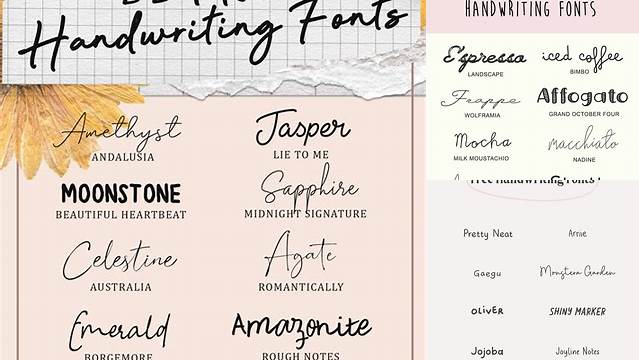
Free Handwriting Fonts: Download The Best Styles Now!
Hey guys! Looking to add a personal touch to your projects? Nothing beats the charm of handwriting fonts. Whether you're designing invitations, creating logos, or just spicing up your social media posts, the right font can make all the difference. Let's dive into the world of free handwriting fonts and explore the best options out there. We’ll cover everything from where to find them to how to use them effectively. So, buckle up and get ready to transform your designs with some beautiful, hand-crafted typography!
1. The Allure of Free Handwriting Fonts
Let's talk about why free handwriting fonts are so awesome. In a world dominated by sleek, digital designs, these fonts bring a touch of humanity and warmth. They can evoke feelings of nostalgia, intimacy, and authenticity, making your message more relatable. Imagine a wedding invitation with a delicate script or a motivational quote with a bold, handwritten style. The possibilities are endless!
When you use free handwriting fonts, you're adding a unique flair that sets your work apart. These fonts often mimic the natural flow and imperfections of real handwriting, giving your text a personal and organic feel. Plus, let’s be honest, who doesn't love free stuff? You can access a wide variety of styles without breaking the bank, which is a huge win for designers and creatives on a budget. Whether you're a seasoned pro or just starting out, free handwriting fonts are a fantastic resource to have in your toolkit. They offer a simple yet powerful way to elevate your projects and connect with your audience on a deeper level.
2. Where to Find Amazing Free Handwriting Fonts
So, you're on board with using free handwriting fonts, but where do you even begin looking? The internet is a vast ocean, and finding the right font can feel like searching for a needle in a haystack. But don't worry, I've got you covered! There are tons of websites out there that offer a fantastic selection of free handwriting fonts, and I'm going to share some of the best spots with you.
First up, think about websites like Google Fonts, DaFont, and Font Squirrel. These platforms are treasure troves of typography, with a huge range of styles available for download. Google Fonts is especially great because it offers fonts that are optimized for web use, meaning they'll look crisp and clear on any screen. DaFont is another favorite, with a massive collection of fonts submitted by designers from around the world. Font Squirrel is known for its high-quality free fonts, including many that come with commercial licenses, so you can use them in your projects without worrying about copyright issues. Don't forget to explore other resources like Behance and Creative Market, where designers often share their free fonts as a way to showcase their work. With a little bit of digging, you'll discover an amazing collection of free handwriting fonts that are perfect for your next project!
3. Top Free Script Fonts for Elegant Designs
When it comes to adding a touch of elegance and sophistication to your designs, script fonts are your best friend. These fonts mimic the graceful strokes of calligraphy and hand lettering, making them perfect for invitations, logos, and branding materials. But with so many options out there, how do you choose the right one? Let's explore some of the top free script fonts that can elevate your designs and give them that refined look you're after.
Imagine a delicate wedding invitation with swirling, romantic script, or a chic logo with a flowing, handwritten signature. Script fonts can instantly add a touch of class and personality to any project. Some popular free script fonts include those with varying thicknesses, styles, and weights – giving you the flexibility to choose something that matches your overall style and design aesthetic. Remember to consider the readability of the font, especially when using it for body text or smaller elements. A beautiful script font can be a game-changer for your designs, adding that extra layer of sophistication and charm. So, dive in and experiment with these elegant options to create something truly special.
4. Best Free Cursive Fonts for a Personal Touch
If you're aiming for a personal and intimate feel in your designs, cursive fonts are the way to go. These fonts capture the natural flow and rhythm of handwriting, adding a human touch that resonates with your audience. Whether you're creating thank-you notes, social media graphics, or personalized gifts, the right cursive font can make your message feel more authentic and heartfelt. Let's take a look at some of the best free cursive fonts that can help you achieve that warm and personal touch in your projects.
Think about the kind of emotion you want to evoke. Do you want something playful and whimsical, or more sophisticated and elegant? There are cursive fonts that are perfect for either scenario. You can also consider the context in which the font will be used. For example, a flowing, calligraphic cursive might be ideal for wedding invitations, while a simpler, more legible cursive could work well for body text. The key is to choose a font that not only looks beautiful but also conveys the right message and enhances your overall design. With the best free cursive fonts, you can easily add that personal touch that makes your work stand out.
5. Free Calligraphy Fonts to Add Flair
Calligraphy fonts are the epitome of elegance and artistry. These fonts draw inspiration from traditional calligraphy techniques, featuring graceful strokes and intricate letterforms. They're perfect for adding a touch of sophistication to your designs, whether you're working on wedding invitations, certificates, or branding materials. If you're looking to elevate your projects with a dash of flair, let's explore some fantastic free calligraphy fonts that are sure to impress.
Imagine the luxurious feel of a meticulously crafted calligraphy script on a formal invitation, or the refined look of a calligraphic logo for a high-end brand. Calligraphy fonts can instantly transform a design, making it feel more polished and professional. There are different styles available, so you can find something that matches the mood of your project. Some are ornate and decorative, while others are more streamlined and modern. The key is to choose a font that complements your overall design and enhances the message you're trying to convey. With the right free calligraphy fonts, you can add a touch of timeless beauty and elegance to your work.
6. Bold Free Handwriting Fonts for Impact
Sometimes, you need a font that really makes a statement. That's where bold free handwriting fonts come in. These fonts are perfect for headlines, posters, and any design where you want to grab attention. The thick, strong strokes convey confidence and energy, making your message impossible to ignore. Let's dive into the world of bold handwriting fonts and discover some options that pack a serious punch.
Think about the impact a bold, handwritten headline can have on a website or a poster. It instantly stands out and draws the eye, making it a great choice for anything that needs to make a strong impression. When choosing a bold handwriting font, consider the overall tone and message you want to convey. A bold, blocky font might be perfect for a sports-themed design, while a thicker, slightly rougher script could work well for a vintage-inspired project. The versatility of bold free handwriting fonts means you can use them in countless creative ways to make your designs truly stand out. So, go ahead and explore these powerful options to add some serious impact to your work!
7. Light and Airy Free Handwriting Fonts
On the flip side, sometimes you need a font that's light, delicate, and airy. These fonts are perfect for creating a sense of elegance, subtlety, and calm. They work beautifully for invitations, thank-you notes, and designs where you want a soft and gentle touch. Let's explore some lovely free handwriting fonts that capture this ethereal quality.
Picture a minimalist design with a delicate, handwritten script floating across the page. It creates a sense of understated beauty and sophistication. Light and airy free handwriting fonts are often characterized by their thin strokes and graceful curves, giving them a refined and elegant appearance. They can add a touch of romance to wedding invitations, create a calming vibe on a wellness website, or simply make your text feel more personal and inviting. When using these fonts, it's important to consider the background and other design elements to ensure the text remains legible and the overall look is harmonious. With the right light and airy handwriting font, you can create designs that are both beautiful and impactful.
8. Fun and Playful Free Handwriting Fonts
If you're working on a project that needs a dose of fun and whimsy, playful free handwriting fonts are the perfect choice. These fonts inject personality and energy into your designs, making them ideal for kids' projects, social media graphics, and anything that needs a lighthearted touch. Let's explore some of these lively and engaging fonts that can bring a smile to your audience's faces.
Imagine a children's book with a bouncy, handwritten title, or a birthday party invitation with a quirky, playful script. These fonts instantly create a sense of joy and excitement, making them perfect for projects that need a little bit of fun. Playful free handwriting fonts often feature irregular lines, quirky letterforms, and a sense of spontaneity that makes them feel truly unique. They can be used to create a casual, friendly vibe, making your message more approachable and engaging. When choosing a playful font, consider the age group and tone of your audience to ensure it aligns with your overall design. With the right fun and playful font, you can create designs that are both eye-catching and enjoyable.
9. Modern Free Handwriting Fonts
For designs that need a contemporary and stylish touch, modern free handwriting fonts are the way to go. These fonts blend the natural charm of handwriting with a clean, minimalist aesthetic, making them perfect for branding, websites, and other modern applications. Let's dive into some of the best modern handwriting fonts that can give your designs a fresh and sophisticated look.
Think about a sleek website with a handwritten logo or a modern business card with a stylish, handwritten tagline. These elements can add a personal touch to your brand while maintaining a professional appearance. Modern free handwriting fonts often feature simplified letterforms, clean lines, and a subtle sense of imperfection that gives them character. They can be incredibly versatile, working well for both headings and body text, depending on the style and weight of the font. When choosing a modern handwriting font, consider the overall tone and branding of your project to ensure it aligns with your vision. With the right font, you can create designs that are both contemporary and personal.
10. Vintage and Retro Free Handwriting Fonts
If you're aiming for a nostalgic and timeless feel in your designs, vintage and retro free handwriting fonts are an excellent choice. These fonts evoke the charm of past eras, adding a touch of history and character to your projects. They're perfect for posters, logos, and any design that needs a classic touch. Let's explore some of these fonts that can transport your audience back in time.
Imagine a vintage-inspired poster with a bold, handwritten script, or a retro logo with a quirky, handwritten typeface. These elements can instantly give your design a sense of history and authenticity. Vintage and retro free handwriting fonts often feature distressed textures, unique letterforms, and a style that harks back to the hand-lettered signs and advertisements of the past. They can be used to create a sense of nostalgia, making your designs feel warm and familiar. When choosing a vintage font, consider the specific era you want to evoke and the overall tone of your project. With the right font, you can create designs that are both stylish and timeless.
11. Free Handwriting Fonts for Cricut Projects
If you're a DIY enthusiast or crafter, you probably love using your Cricut machine to create personalized projects. And what better way to add a personal touch than with handwriting fonts? Free handwriting fonts for Cricut projects can elevate your creations, whether you're making cards, labels, or home decor. Let's explore some great options that work well with Cricut and other cutting machines.
Think about custom-made cards with heartfelt messages, personalized labels for your pantry, or unique wall art with inspiring quotes. Handwriting fonts can make these projects feel extra special and handmade. When choosing a free handwriting font for Cricut, it's important to consider the cutability of the font. Fonts with smooth lines and fewer intricate details will generally cut cleaner and easier. You'll also want to choose a font that fits the style and tone of your project. A delicate script might be perfect for a wedding invitation, while a bold, playful font could be ideal for a children's birthday card. With the right font, you can create beautiful and personalized projects that showcase your creativity and style.
12. Free Handwriting Fonts for Procreate
Procreate is a fantastic app for digital artists and designers, and using free handwriting fonts in your Procreate projects can open up a world of creative possibilities. Whether you're creating illustrations, lettering art, or digital designs, the right font can add a personal touch and make your work stand out. Let's explore some great handwriting fonts that are perfect for Procreate.
Imagine adding a handwritten quote to your digital artwork, creating a custom logo with a unique script, or designing a greeting card with a personal message. Handwriting fonts can bring a sense of authenticity and warmth to your digital creations. When choosing a free handwriting font for Procreate, consider the style and tone of your project. A flowing, calligraphic font might be perfect for an elegant invitation, while a bold, handwritten font could be ideal for a poster or social media graphic. You'll also want to think about the readability of the font, especially if you're using it for body text or smaller elements. With the right font, you can create stunning digital designs that feel both personal and professional.
13. Free Handwriting Fonts for Logos
A logo is the face of your brand, and choosing the right font is crucial for conveying your brand's personality and message. Free handwriting fonts can be a fantastic option for creating logos that are unique, memorable, and personal. Whether you're starting a small business or rebranding an existing one, let's explore some great handwriting fonts that can help you create a logo that truly stands out.
Think about some of the most iconic logos – many of them feature handwritten or script fonts that give them a distinctive look. A handwritten font can add a sense of authenticity and warmth to your brand, making it feel more approachable and human. When choosing a free handwriting font for your logo, consider your brand's identity and target audience. A bold, modern font might be perfect for a tech startup, while a delicate script could be ideal for a wedding planner or florist. You'll also want to ensure that the font is legible and scalable, so it looks good in both large and small sizes. With the right font, you can create a logo that truly captures the essence of your brand.
14. Free Handwriting Fonts for Invitations
Creating invitations for special events is all about setting the right tone and making a great first impression. Free handwriting fonts can add a touch of elegance, warmth, and personality to your invitations, making them feel extra special. Whether you're planning a wedding, birthday party, or any other celebration, let's explore some beautiful handwriting fonts that can help you create invitations that truly shine.
Imagine receiving a wedding invitation with a delicate, flowing script, or a birthday party invitation with a playful, handwritten font. These details can make your guests feel excited and welcomed. When choosing a free handwriting font for your invitations, consider the style and formality of your event. A calligraphic font might be perfect for a formal wedding, while a casual script could be ideal for a backyard barbecue. You'll also want to ensure that the font is legible and easy to read, so your guests can quickly find the important details. With the right font, you can create invitations that are both beautiful and informative, setting the stage for a memorable event.
15. Free Handwriting Fonts for Social Media
In the fast-paced world of social media, it's important to grab attention and stand out from the crowd. Using free handwriting fonts in your social media graphics can add a personal touch and make your posts more engaging. Whether you're creating quotes, announcements, or promotional content, let's explore some fantastic handwriting fonts that can help you elevate your social media presence.
Think about how a handwritten quote can add a touch of authenticity to your Instagram feed, or how a playful script can make your Facebook posts more eye-catching. Handwriting fonts can help you connect with your audience on a more personal level, making your content feel more relatable and genuine. When choosing a free handwriting font for social media, consider the overall style and tone of your brand. A bold, modern font might be perfect for a tech company, while a delicate script could be ideal for a beauty brand. You'll also want to ensure that the font is legible and easy to read, especially on smaller screens. With the right font, you can create social media graphics that are both visually appealing and impactful.
16. Free Handwriting Fonts for T-Shirts
Designing your own t-shirts is a fun and creative way to express your personality and style. Using free handwriting fonts in your t-shirt designs can add a unique and personal touch, making your creations stand out. Whether you're making shirts for yourself, your friends, or your business, let's explore some great handwriting fonts that are perfect for t-shirt designs.
Imagine a t-shirt with an inspiring quote in a stylish script, or a funny slogan in a bold, handwritten font. These designs can make a statement and reflect your individual style. When choosing a free handwriting font for t-shirts, it's important to consider the legibility of the font, especially if you're using it for smaller text. You'll also want to think about the overall design and the message you want to convey. A bold, edgy font might be perfect for a rock band's merchandise, while a delicate script could be ideal for a personalized gift. With the right font, you can create t-shirt designs that are both stylish and meaningful.
17. Free Handwriting Fonts for Websites
Your website is your online storefront, and choosing the right fonts is crucial for creating a professional and engaging user experience. Free handwriting fonts can add a personal touch to your website, making it feel more welcoming and authentic. Whether you're designing a blog, an online store, or a portfolio, let's explore some fantastic handwriting fonts that can help you elevate your website's design.
Think about how a handwritten logo can make your website more memorable, or how a delicate script can add a touch of elegance to your headings. Handwriting fonts can help you create a website that stands out from the crowd and reflects your unique brand personality. When choosing a free handwriting font for your website, it's important to consider the readability of the font, especially for body text. You'll also want to ensure that the font is web-friendly and loads quickly, so your website visitors have a smooth and enjoyable experience. With the right font, you can create a website that is both visually appealing and user-friendly.
18. How to Pair Free Handwriting Fonts with Other Fonts
Choosing the right handwriting font is just the first step. To create truly stunning designs, you'll need to know how to pair them with other fonts effectively. Pairing free handwriting fonts with contrasting fonts can create visual interest and balance, making your designs more dynamic and engaging. Let's explore some tips and tricks for pairing handwriting fonts with other fonts like a pro.
Think about how a bold, sans-serif font can complement a delicate script, or how a clean, minimalist font can make a handwritten headline stand out. The key is to create contrast and harmony, so your fonts work together to convey your message effectively. When pairing free handwriting fonts, consider the overall style and tone of your project. A modern handwriting font might pair well with a geometric sans-serif, while a vintage script could look great with a classic serif font. You'll also want to pay attention to the size and spacing of your fonts, ensuring they are legible and visually balanced. With the right font pairings, you can create designs that are both beautiful and impactful.
19. Using Free Handwriting Fonts for Branding
Your brand is more than just a logo – it's the overall impression you create in the minds of your customers. Using free handwriting fonts in your branding materials can add a personal touch and make your brand feel more authentic and relatable. Whether you're designing business cards, brochures, or website graphics, let's explore how you can use handwriting fonts to create a brand that truly stands out.
Think about how a handwritten logo can convey a sense of creativity and craftsmanship, or how a personalized script can add a touch of warmth to your marketing materials. Handwriting fonts can help you connect with your audience on a more emotional level, making your brand feel more human and approachable. When using free handwriting fonts for branding, it's important to choose a font that reflects your brand's personality and values. A bold, modern font might be perfect for a tech company, while a delicate script could be ideal for a lifestyle brand. You'll also want to ensure that the font is legible and consistent across all your branding materials. With the right font, you can create a brand that is both memorable and impactful.
20. The Legality of Using Free Handwriting Fonts
Before you start using free handwriting fonts in your projects, it's important to understand the legal aspects of font licensing. Not all free fonts are created equal, and some may have restrictions on how you can use them. Let's explore the different types of font licenses and what you need to know to ensure you're using free handwriting fonts legally.
Think about the difference between personal and commercial use, and how font licenses can vary depending on the type of project you're working on. Some free handwriting fonts may be free for personal use only, meaning you can use them for personal projects but not for commercial purposes. Others may come with a commercial license that allows you to use them in your business or for profit-making activities. It's important to carefully read the font license before using a font, to ensure you're complying with the terms and conditions. This will help you avoid any potential legal issues and ensure you're using free handwriting fonts responsibly.
21. Troubleshooting Common Issues with Free Handwriting Fonts
Using free handwriting fonts can sometimes come with its own set of challenges. From font installation issues to compatibility problems, there are a few common issues you might encounter. But don't worry, we're here to help! Let's explore some common issues and how to troubleshoot them, so you can get back to creating beautiful designs.
Think about situations like a font not showing up in your design software, or characters displaying incorrectly. These issues can be frustrating, but they're often easily resolved with a few simple steps. One common issue is incorrect font installation, which can be fixed by reinstalling the font or restarting your computer. Another issue is font compatibility, where a font may not work properly with certain software or operating systems. In this case, you might need to try a different font format or use a different design program. By understanding these common issues and how to troubleshoot them, you can ensure a smooth and enjoyable experience using free handwriting fonts in your projects.
22. Free Handwriting Fonts for Digital Art
Digital art has exploded in popularity, and incorporating free handwriting fonts into your digital creations can add a unique, personalized touch. Whether you're crafting illustrations, digital paintings, or graphic designs, the right font can elevate your work. Let's delve into the world of handwriting fonts perfect for digital art projects.
Imagine adding a handwritten quote to a digital landscape painting or using a stylish script for a character's dialogue in a comic strip. The possibilities are endless! When selecting free handwriting fonts for digital art, consider the overall aesthetic of your piece. A bold, brush-style font might be ideal for a dynamic, energetic artwork, while a delicate, flowing script could add elegance to a more refined design. Compatibility with your chosen software, such as Adobe Photoshop or Procreate, is also crucial. By carefully selecting the right font, you can enhance your digital art and create visually stunning pieces that stand out.
23. Free Handwriting Fonts for Crafts
Crafting is all about adding a personal touch, and free handwriting fonts are a fantastic way to do just that. Whether you're making cards, scrapbooking, or creating home décor, the right font can transform your project. Let's explore some amazing handwriting fonts that are perfect for your crafting endeavors.
Think about a handmade card with a heartfelt message in a beautiful script or a scrapbook page adorned with handwritten journaling. These details make your crafts truly unique and meaningful. When choosing free handwriting fonts for crafts, consider the medium you're working with. For projects involving cutting machines like Cricut or Silhouette, select fonts with clean lines and minimal intricate details for easier cutting. For hand-lettering projects, explore a variety of styles to match the tone and theme of your craft. With the right font, you can add a touch of personality and charm to all your handmade creations.
24. Free Handwriting Fonts for Resumes
In today's competitive job market, standing out is essential. While you might not want to use an overly flamboyant font, incorporating subtle free handwriting fonts into your resume can add a touch of personality and make it more memorable. Let's explore how to use handwriting fonts effectively in your resume without sacrificing professionalism.
Imagine using a slightly handwritten font for your name or section headings to add a unique flair. The key is to choose a font that is legible and professional while still conveying a hint of your personality. Avoid overly stylized or decorative fonts that can be difficult to read. Opt for clean, modern handwriting fonts that mimic natural penmanship without being distracting. Remember, the content of your resume is paramount, so the font should enhance, not overshadow, your qualifications. By carefully selecting and using a free handwriting font, you can make your resume more engaging and memorable to potential employers.
25. Free Handwriting Fonts for Newsletters
Newsletters are a vital communication tool for businesses and organizations. Using free handwriting fonts can add a personal touch to your newsletters, making them more engaging and less generic. Let's explore how to incorporate handwriting fonts effectively in your newsletter design.
Think about using a handwritten font for your newsletter's heading or for highlighting key messages. This can create a sense of warmth and authenticity, making your subscribers feel more connected. When selecting free handwriting fonts for newsletters, consider readability as a top priority. Choose fonts that are clear and easy to read, especially for body text. Use handwritten fonts sparingly and strategically, pairing them with more traditional fonts for a balanced and professional look. By incorporating handwriting fonts thoughtfully, you can create newsletters that are both visually appealing and effective in conveying your message.
26. Free Handwriting Fonts for Ebooks
Ebooks have become a popular medium for sharing stories, knowledge, and information. Using free handwriting fonts in your ebook design can add a unique aesthetic and enhance the reading experience. Let's explore how to incorporate handwriting fonts in your ebook effectively.
Imagine using a stylish script font for your ebook's title or chapter headings to create visual interest. The key is to choose fonts that complement your content and enhance readability. When selecting free handwriting fonts for ebooks, consider the genre and tone of your book. A whimsical script might be perfect for a children's book, while a more elegant font could suit a historical novel. Remember to use handwritten fonts sparingly and strategically, ensuring they don't detract from the overall reading experience. By incorporating handwriting fonts thoughtfully, you can create ebooks that are visually appealing and engaging for your readers.
27. Free Handwriting Fonts for Presentations
Creating engaging presentations is crucial for effectively communicating your message. Using free handwriting fonts can add a personal touch to your slides, making them more visually appealing and memorable. Let's explore how to incorporate handwriting fonts effectively in your presentations.
Think about using a handwritten font for your presentation titles, quotes, or key takeaways to add emphasis. The goal is to enhance your slides without distracting your audience. When selecting free handwriting fonts for presentations, prioritize readability. Choose fonts that are clear and easy to read, even from a distance. Use handwritten fonts sparingly and strategically, pairing them with more traditional fonts for a balanced and professional look. By incorporating handwriting fonts thoughtfully, you can create presentations that are both visually engaging and impactful.
28. Free Handwriting Fonts for Scrapbooking
Scrapbooking is a wonderful way to preserve memories and tell stories. Using free handwriting fonts in your scrapbooks can add a personal touch and make your layouts even more special. Let's explore how to incorporate handwriting fonts in your scrapbooking projects.
Imagine adding handwritten journaling or quotes to your scrapbook pages using a beautiful script font. This can make your layouts more meaningful and heartfelt. When selecting free handwriting fonts for scrapbooking, consider the style and theme of your scrapbook. A playful font might be perfect for a children's scrapbook, while a more elegant script could suit a wedding album. You can use handwritten fonts for titles, captions, journaling, or even decorative elements. By incorporating handwriting fonts creatively, you can add personality and charm to your scrapbooking projects.
29. Free Handwriting Fonts for Planners
Planners help us stay organized and achieve our goals. Using free handwriting fonts in your planner can add a personal touch and make planning more enjoyable. Let's explore how to incorporate handwriting fonts into your planner effectively.
Think about using a handwritten font for your planner headers, dates, or to-do lists. This can make your planner more visually appealing and personalized. When selecting free handwriting fonts for planners, consider readability and space constraints. Choose fonts that are clear and easy to read, even in small sizes. Opt for fonts that are not too elaborate or decorative, as they might take up too much space. You can use handwritten fonts to add a touch of style and personality to your planner, making it a more enjoyable tool for organization.
30. The Future of Free Handwriting Fonts in Design
The world of design is constantly evolving, and free handwriting fonts are playing an increasingly important role in creating authentic and engaging visual experiences. Let's take a look at the future of handwriting fonts in design and explore emerging trends and possibilities.
Think about how handwriting fonts can be used to create more personalized and human-centered designs. As technology advances, we can expect to see more sophisticated handwriting fonts that mimic natural penmanship even more closely. Artificial intelligence and machine learning may play a role in generating new and unique handwriting styles. We might also see more variable fonts that offer a wide range of weights and styles within a single font file, providing greater flexibility and control. The future of free handwriting fonts in design is bright, with endless possibilities for creating visually stunning and meaningful projects.